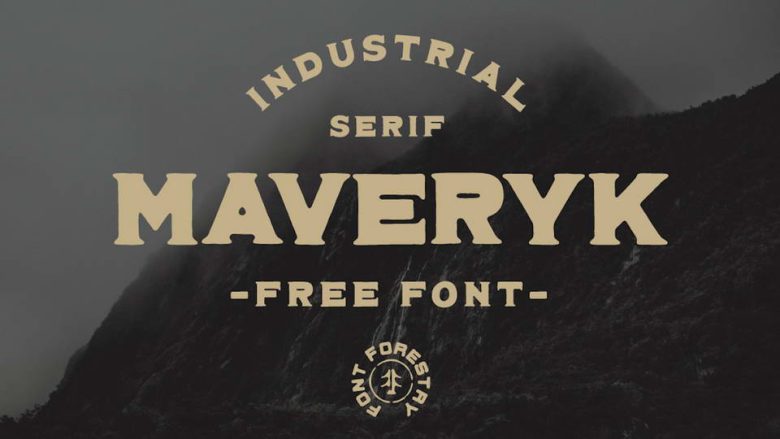
Maveryk Typeface
Maveryk is chunky font that features some roughness and uneven edges for a hand drawn vibe. It’s perfect for headlines, labels and branding that requires a strong vintage or industrial aesthetic.